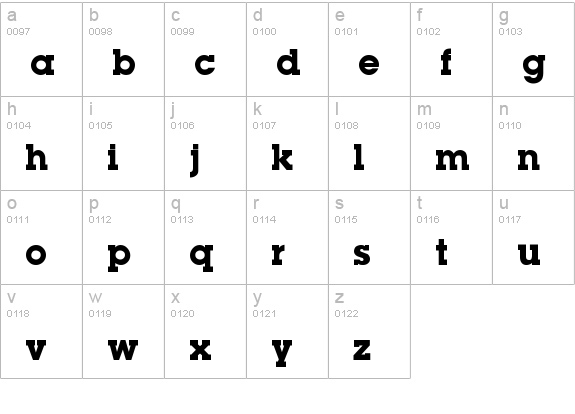
Lapland ExtraBold is an extra-heavy, attention-grabbing variant in the Lapland typeface family \xE2\x80\x94 well suited to high-impact headlines, posters, and bold branding.
Introducing Lapland ExtraBold, a font that exudes boldness and confidence in every letterform. With its striking and commanding presence, this font is perfect for making a statement that cannot be ignored. Lapland ExtraBold boasts a unique balance between modernity and classic elegance, making it suitable for a wide range of design projects. Whether you're creating eye-catching headlines, designing stylish logos, or crafting impactful posters, this font will effortlessly elevate your creations to new heights. The thick and sturdy strokes of Lapland ExtraBold exude a sense of strength and power, while its refined details and precise curves add a touch of sophistication. Its generous spacing ensures excellent legibility, making it perfect for both print and digital applications. But what truly sets Lapland ExtraBold apart is its versatility and accessibility. This font is freely available to download at FontsMarket.com, allowing designers and creatives from all walks of life to unleash their creativity without any constraints. Say goodbye to expensive font licensing fees and hello to limitless possibilities with Lapland ExtraBold. So, whether you're a seasoned designer looking to add a touch of audacity to your projects or a budding creative exploring new horizons, Lapland ExtraBold is the font that will empower you to make a lasting impression. Download it for free at FontsMarket.com and embark on a typographic journey that will leave a lasting impact.